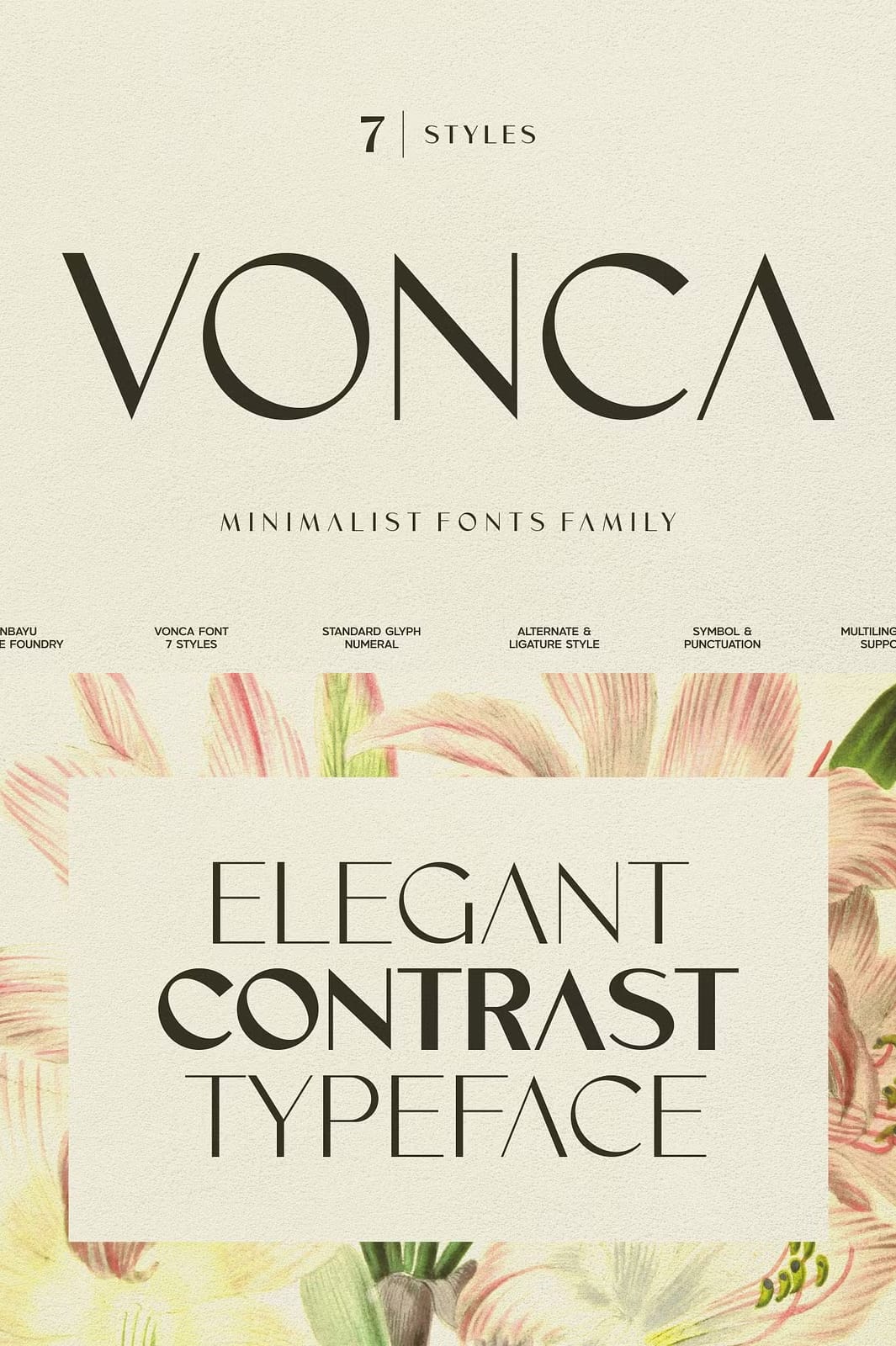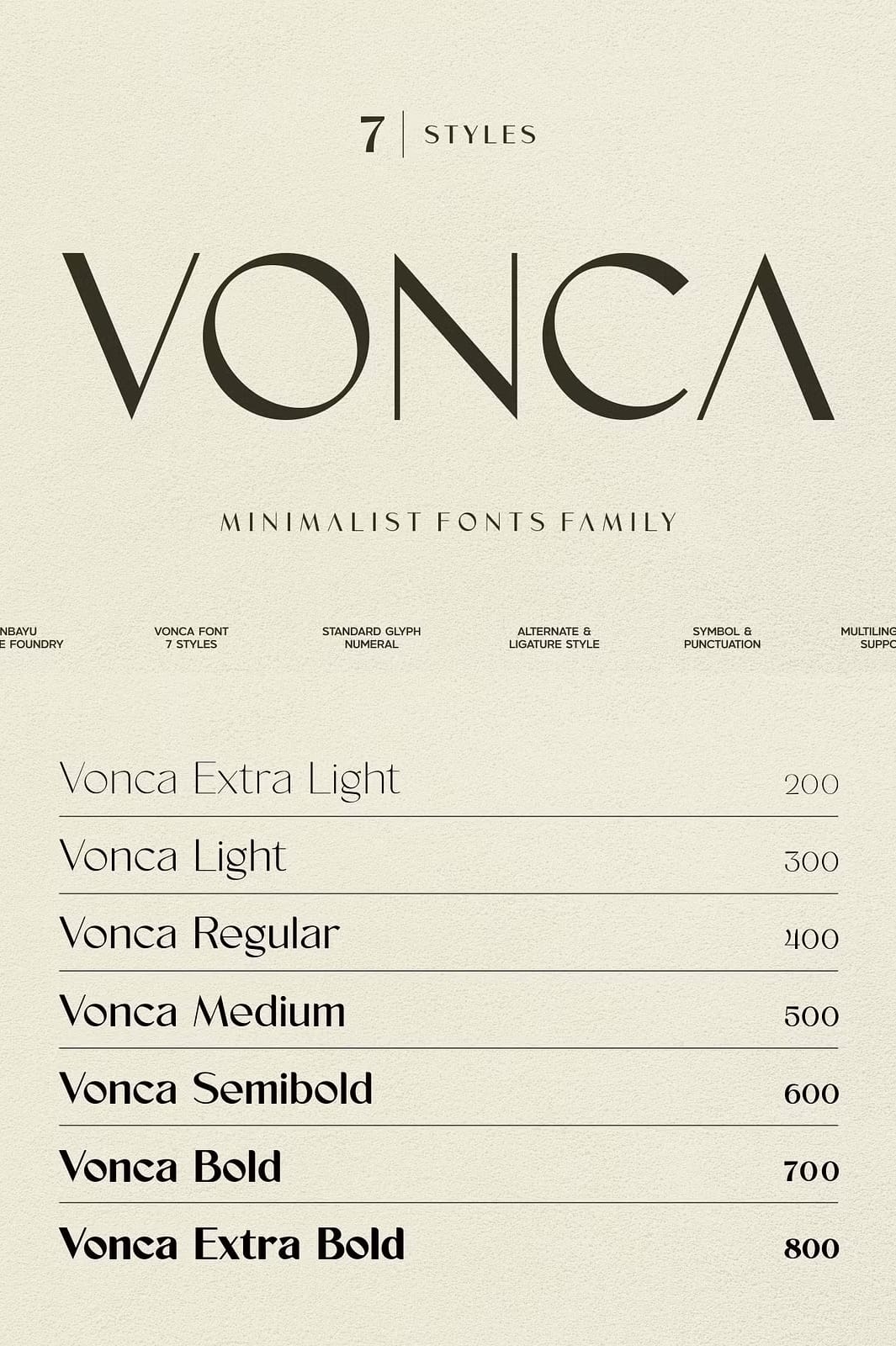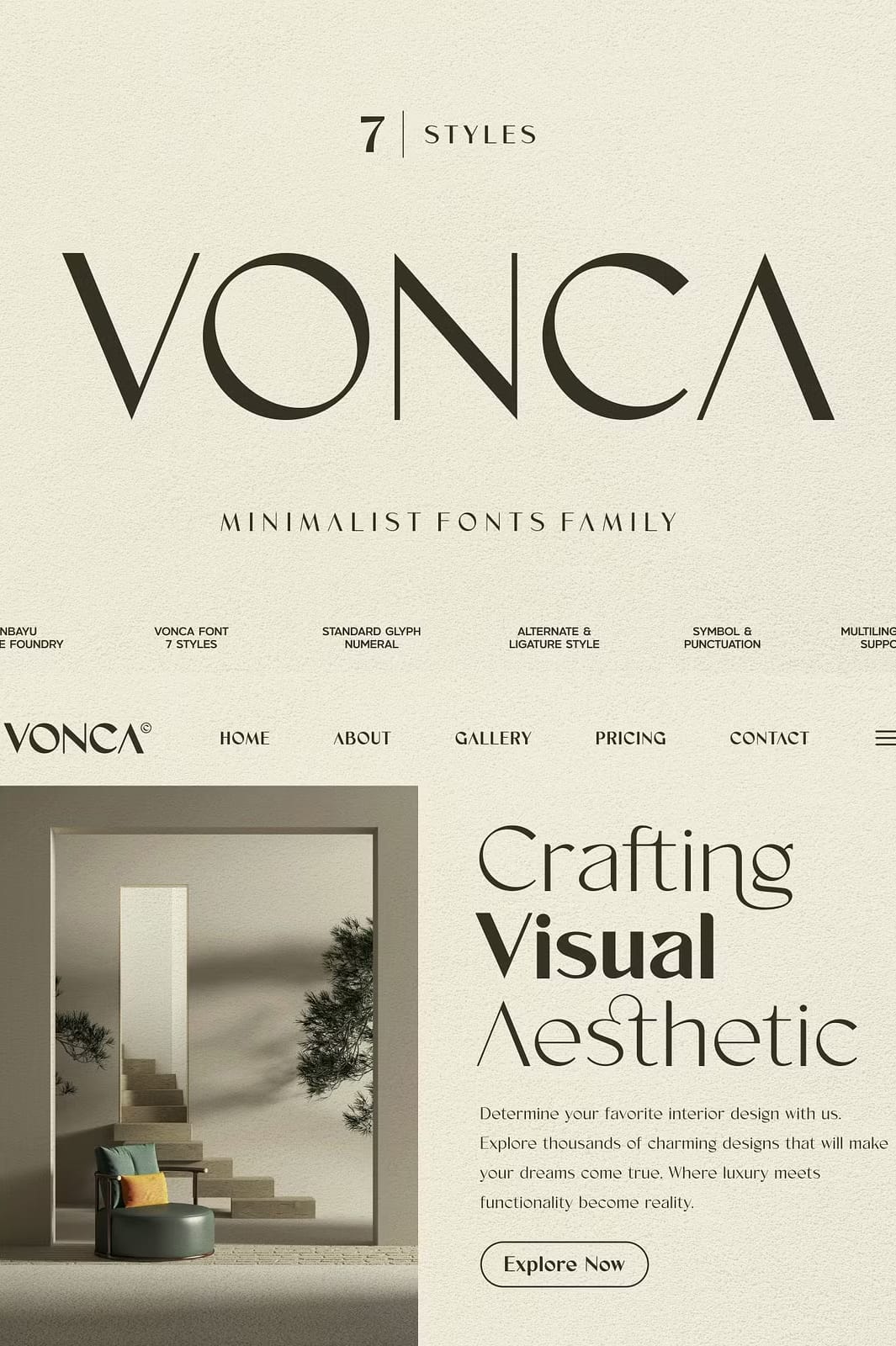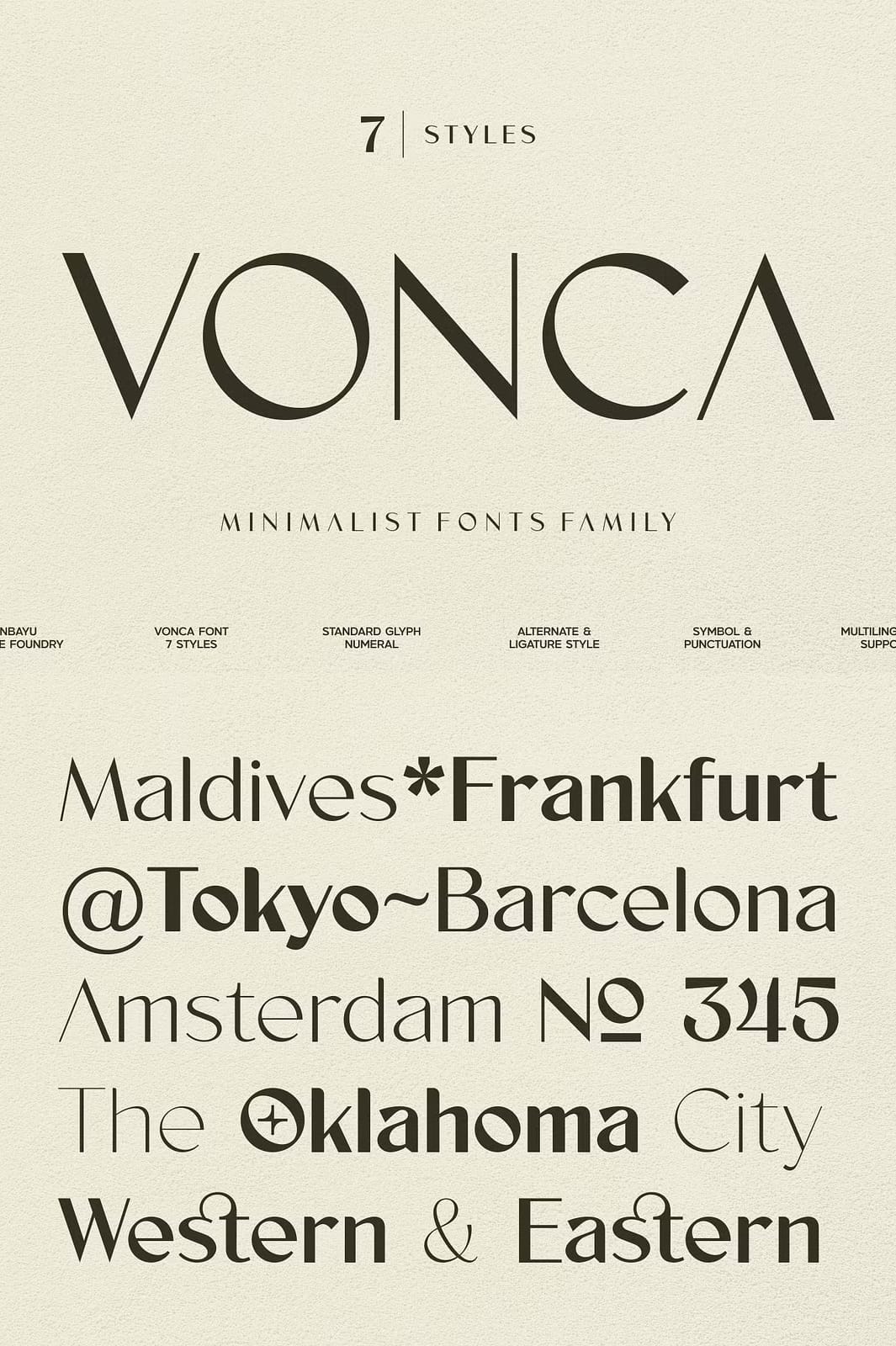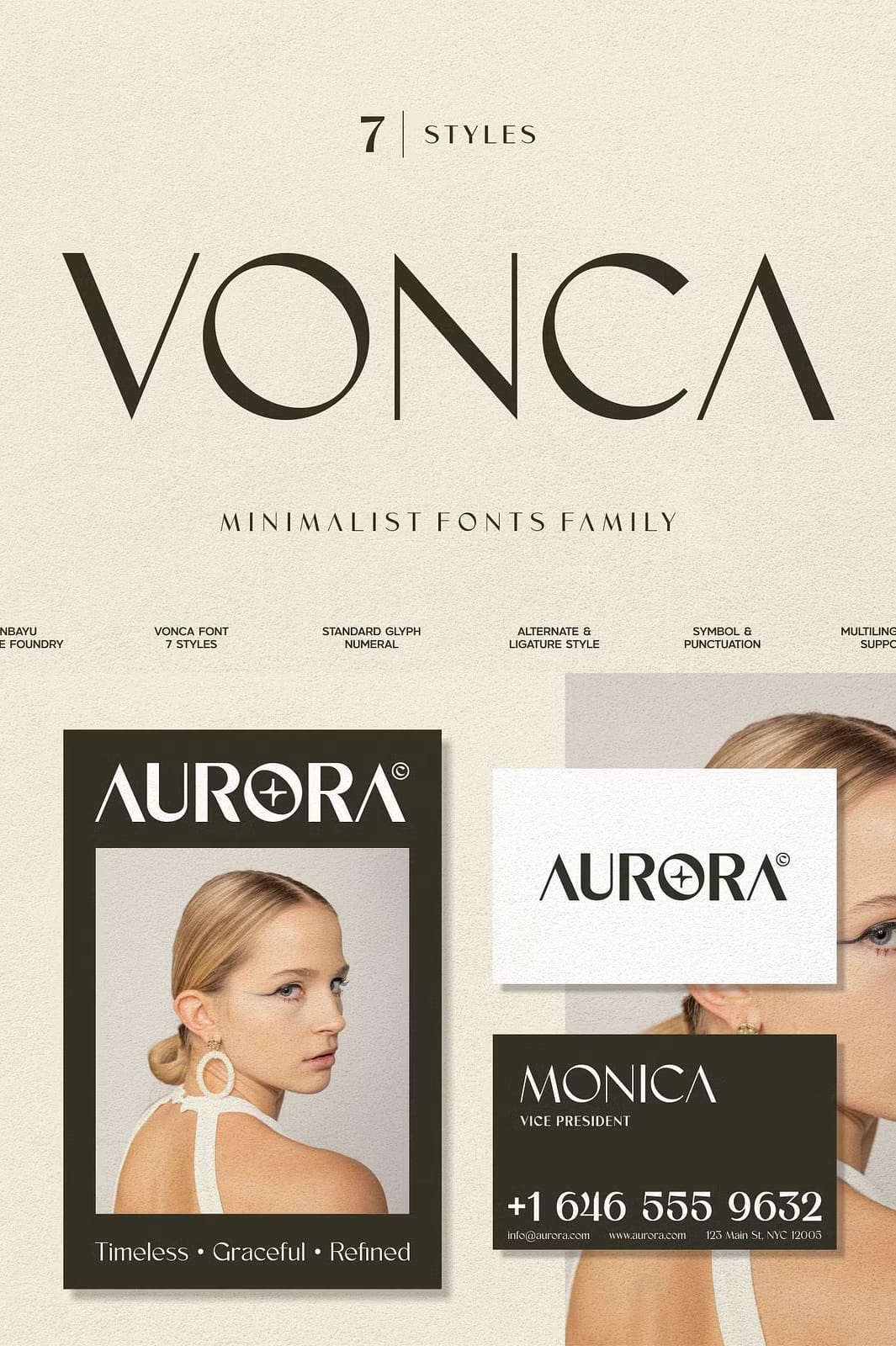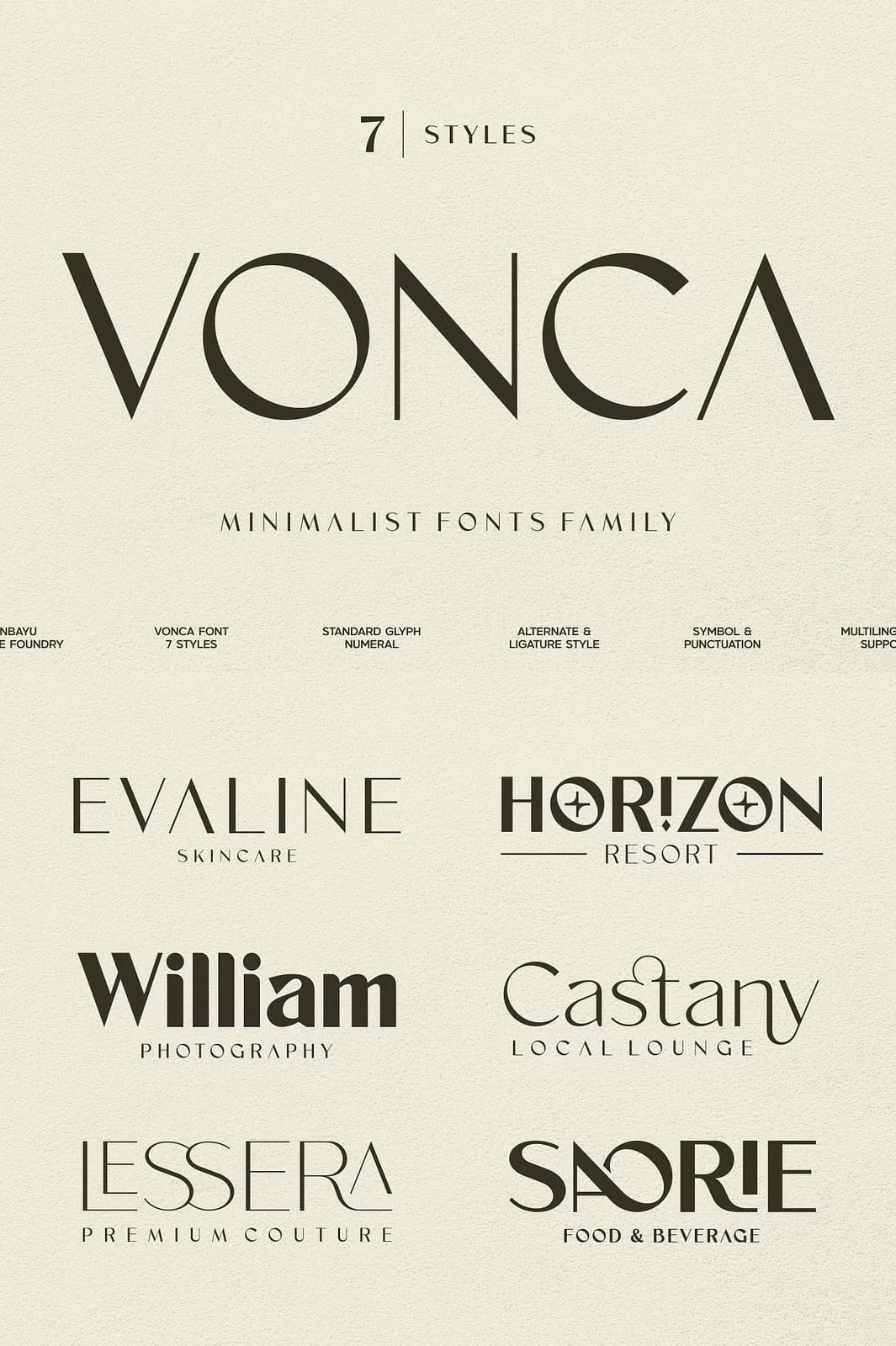
Discover the Simplicity and Elegance of Vonca Font
The Vonca font family embraces modern minimalist design principles by combining clean lines and geometric shapes to create a sleek, efficient visual impression. This versatile font stands out by offering a balanced aesthetic suitable for contemporary as well as vintage design projects. Whether you are working on trendy packaging labels, unique logos, or stylish branding, Vonca delivers a polished finish that enhances your creative vision.
Explore the Seven Stylish Variants of Vonca Typeface
Vonca font family includes seven distinct styles, allowing designers to adapt the typeface to various creative needs. Each style supports multiple formats including OTF, TTF, and Woff, ensuring smooth integration into diverse design workflows. This wide range of choices provides flexibility to maintain consistency in branding while enabling expressive variations for specific design purposes.
Easily Accessible Features and Extensive Language Support
Designed with professional usability in mind, Vonca comes with standard glyphs complemented by stylistic alternates and ligatures. Symbol and punctuation marks are thoughtfully designed to maintain harmony with the overall font aesthetic. Additionally, Vonca supports multiple languages, making it an ideal choice for global projects and multilingual designs without compromising style or readability.
Perfect Typeface for Packaging, Branding, and Fashion Design
Vonca shines in applications that require a modern yet minimalist touch. It is especially effective for packaging label designs where clarity and style are paramount. Creative professionals also favor Vonca for distinctive logos and brand identities because it enhances visual communication with its geometric precision and timeless elegance. Beyond branding, this font also elevates poster designs and fashion-related projects, ensuring your message reaches your audience with impact and confidence.
Stand Out in Your Creative Projects with Vonca Font Family
Using Vonca font instantly elevates your work by embedding a sense of refined simplicity and artistic quality. The minimalist design empowers your content to communicate more clearly and attractively, helping brands and creatives establish strong visual identities. No matter the medium—print or digital—Vonca delivers a professional, stylish finish that resonates with modern audiences.